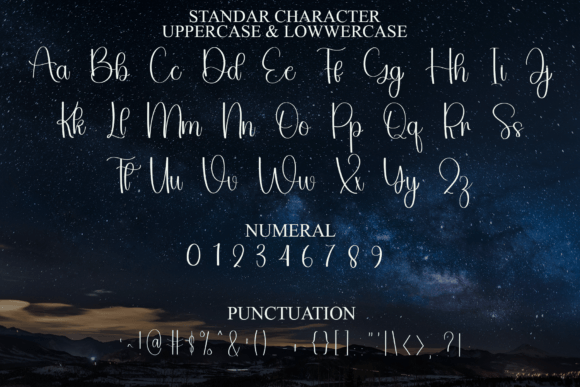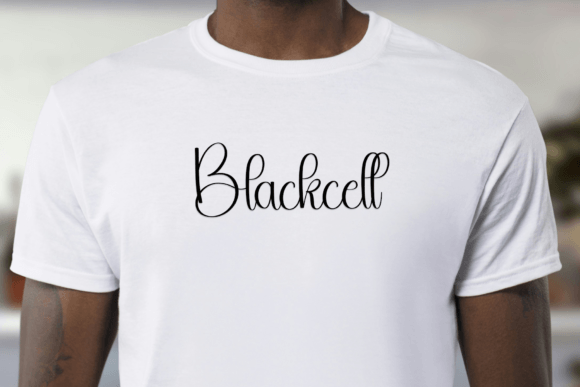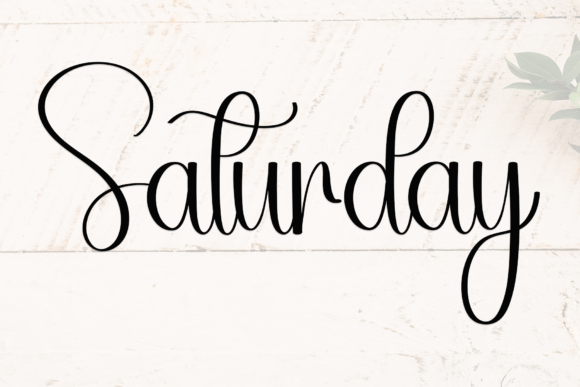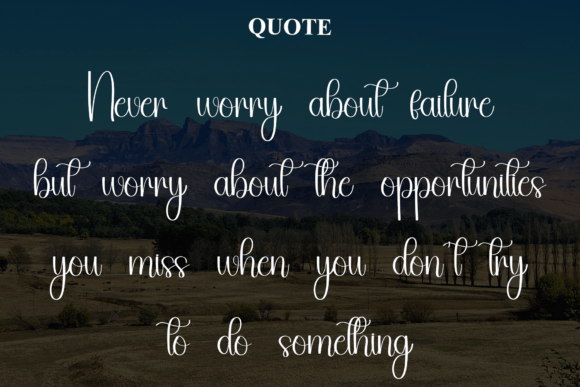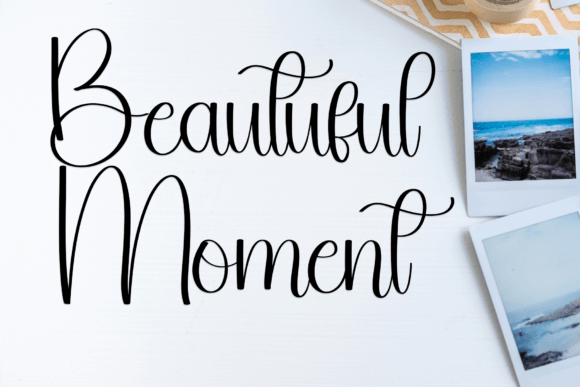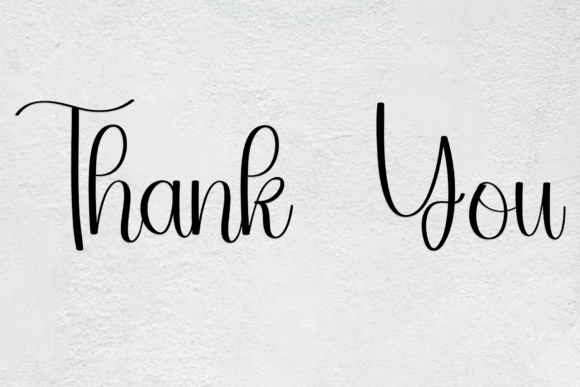
Introduction to Simple Soulmate Font
Simple Soulmate Is a beautiful and attractive font.
Fonts created with a soft touch, unique and distinctive from a stroke, have a good meaning and meaning for the future Has many characters that can be used for design needs, handicrafts, and many more interesting designs.